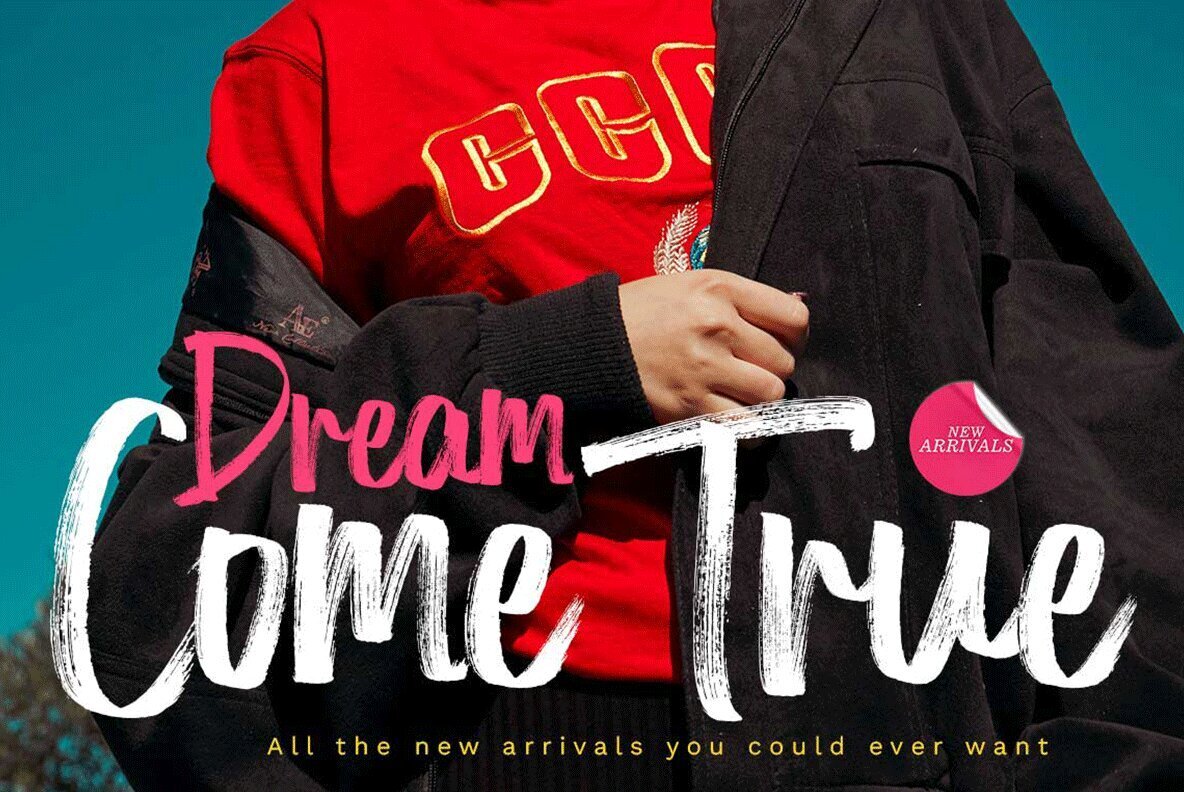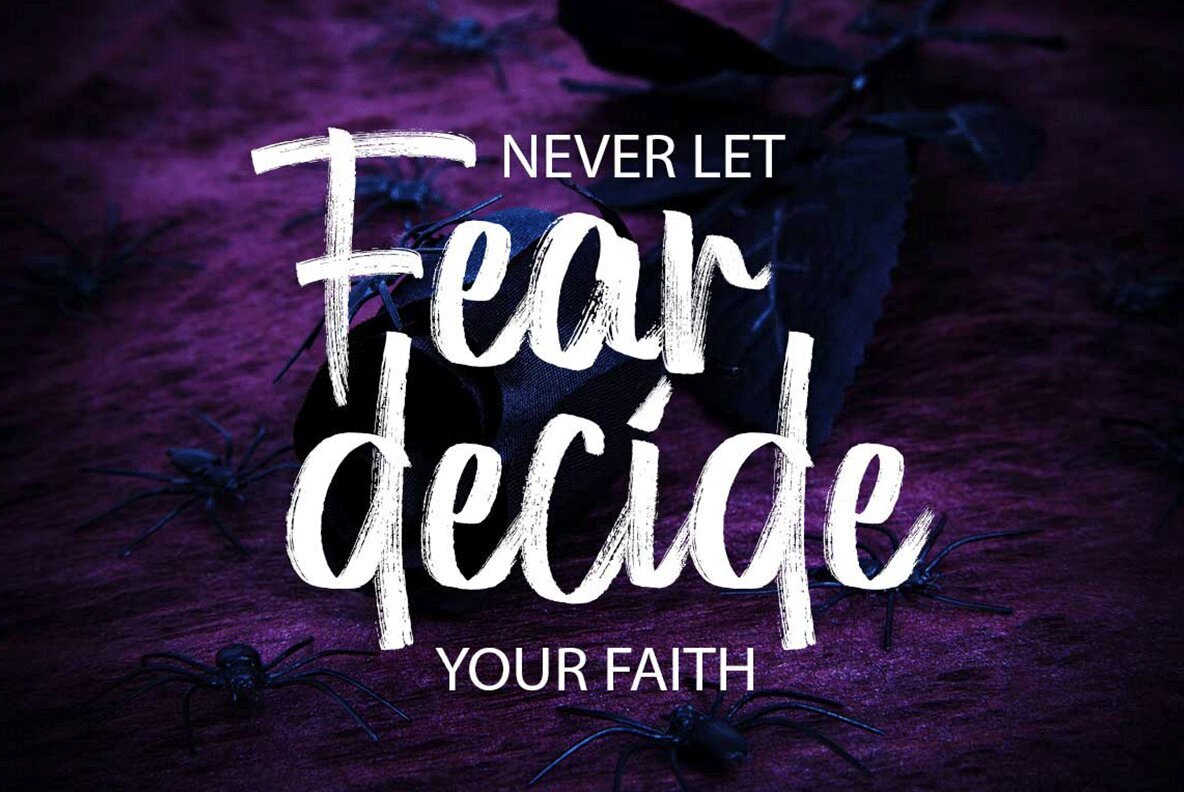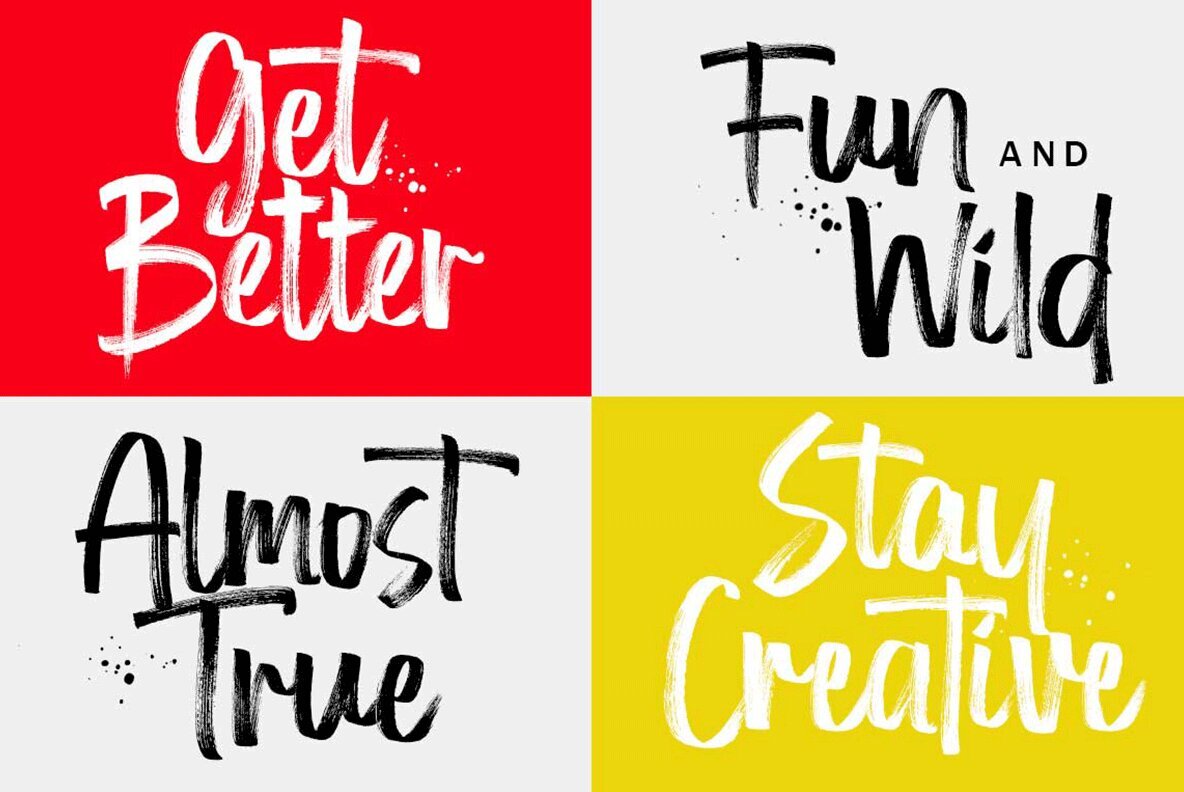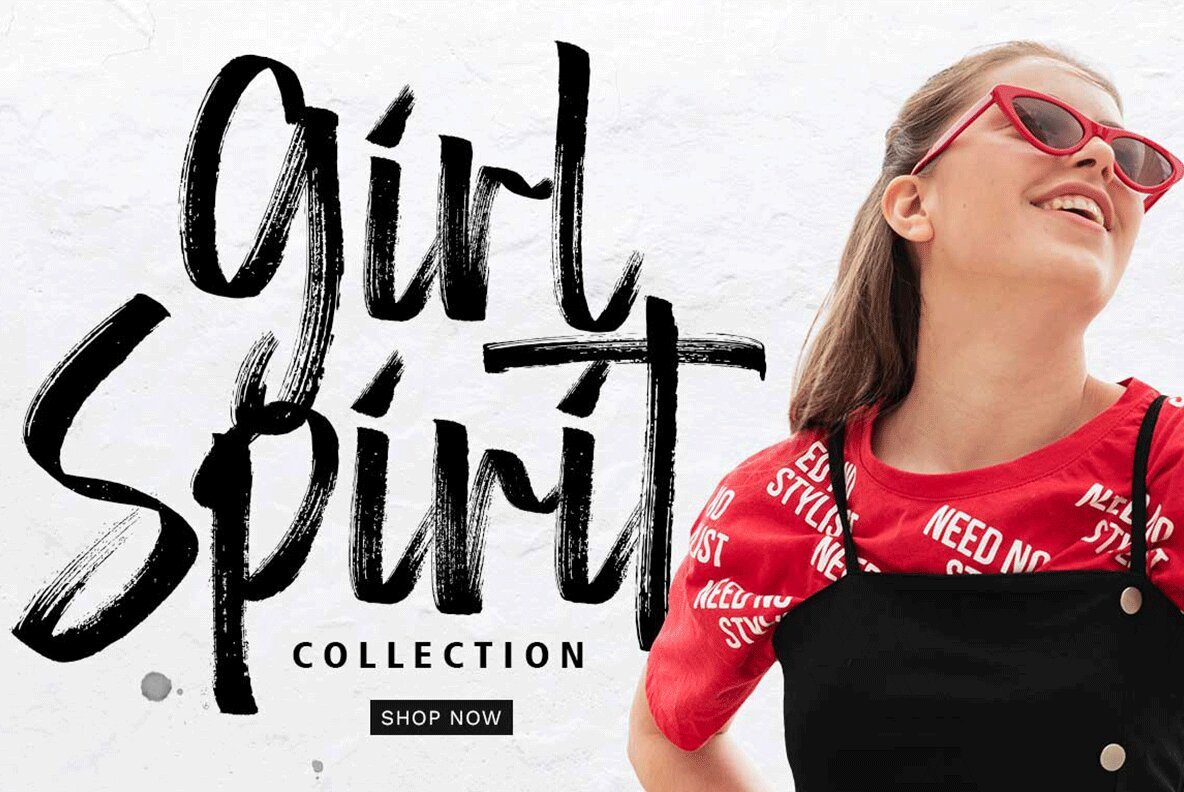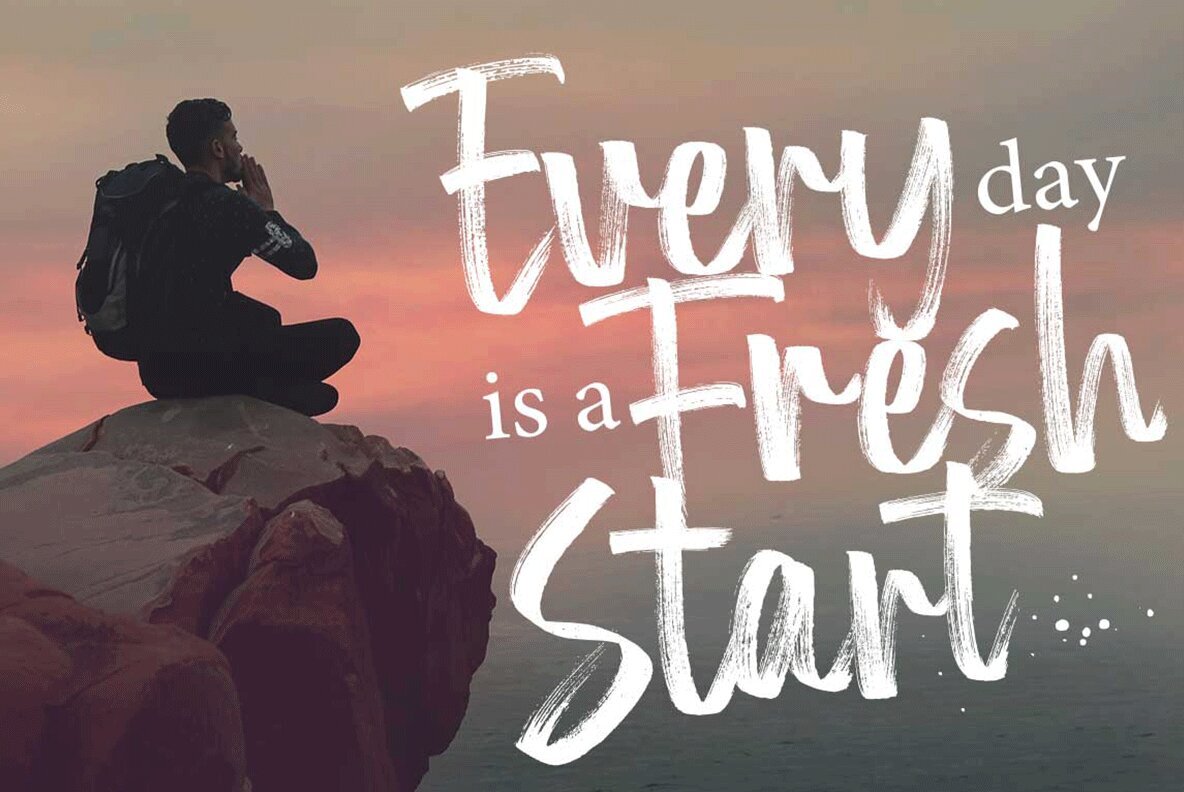
Arthelo Font
Arthelo is a bold, textured brush font that combines a contemporary design with a naturally handcrafted feel, making it ideal for a wide range of design projects. Its unique style is perfect for title designs on clothing, invitations, book covers, stationery, and branding elements like logos and packaging. Additionally, Arthelo shines in creative endeavors such as quotes, greeting cards, t-shirts, and posters. Its versatile nature allows designers to apply it seamlessly across different mediums, adding a distinctive touch to each piece.
This comprehensive font includes both uppercase and lowercase letters, along with multi-language support. It features numbers, punctuation, and a selection of carefully crafted ligatures. For added flexibility in design, Arthelo offers several lowercase alternatives, enabling you to create more visually appealing and unique designs. Whether you're looking to enhance your visual branding or add artistic flair to your work, this font offers the tools needed to craft intriguing and memorable visuals.